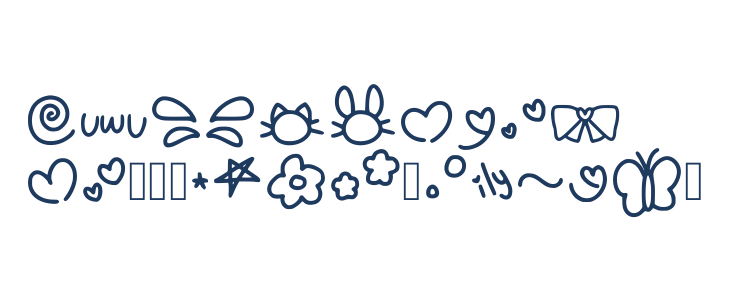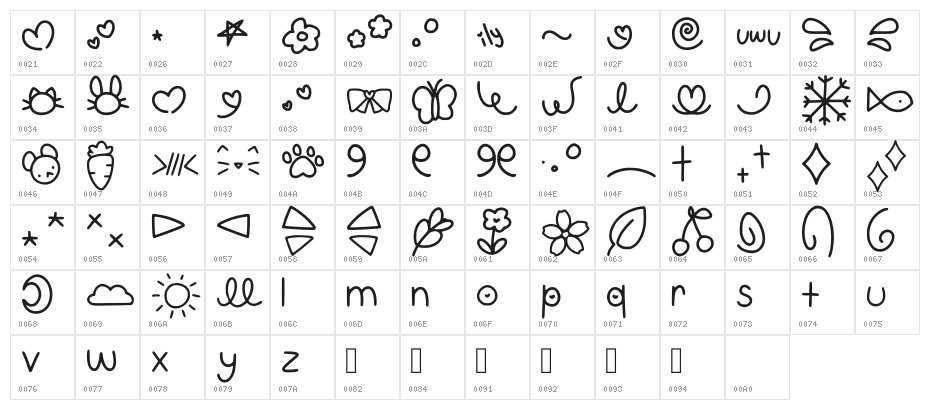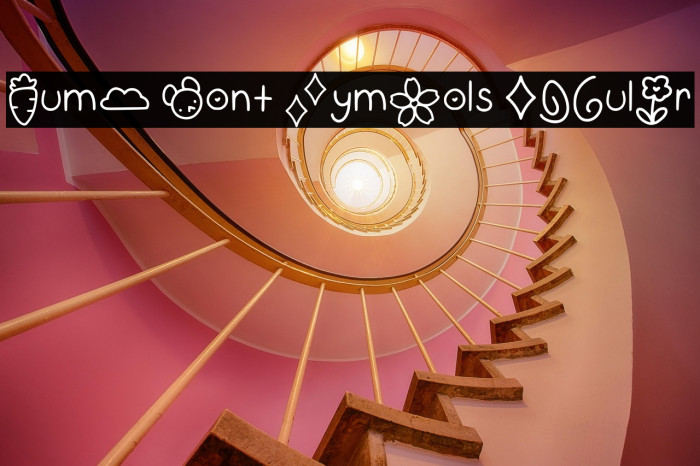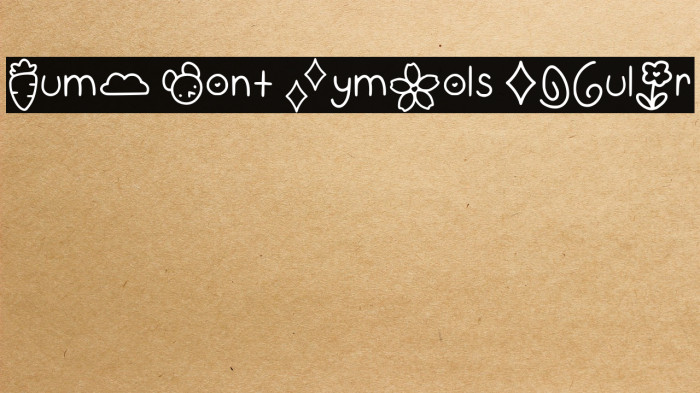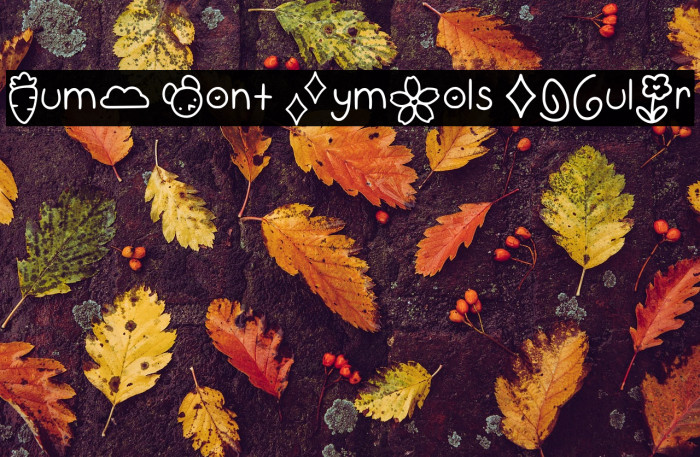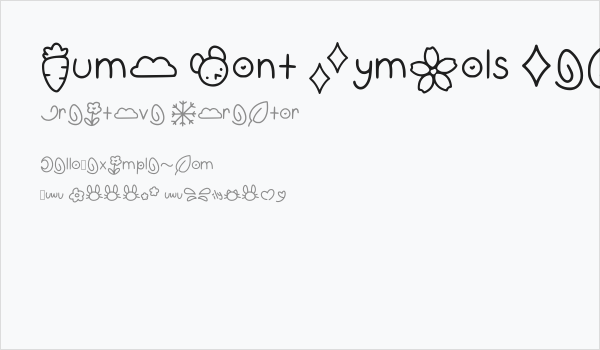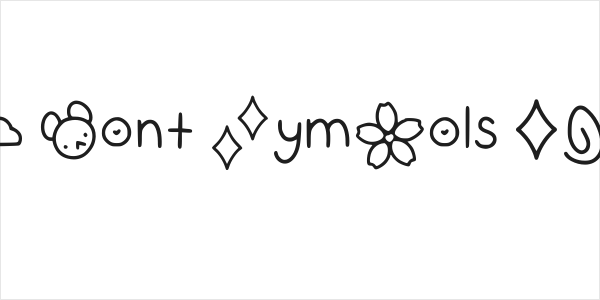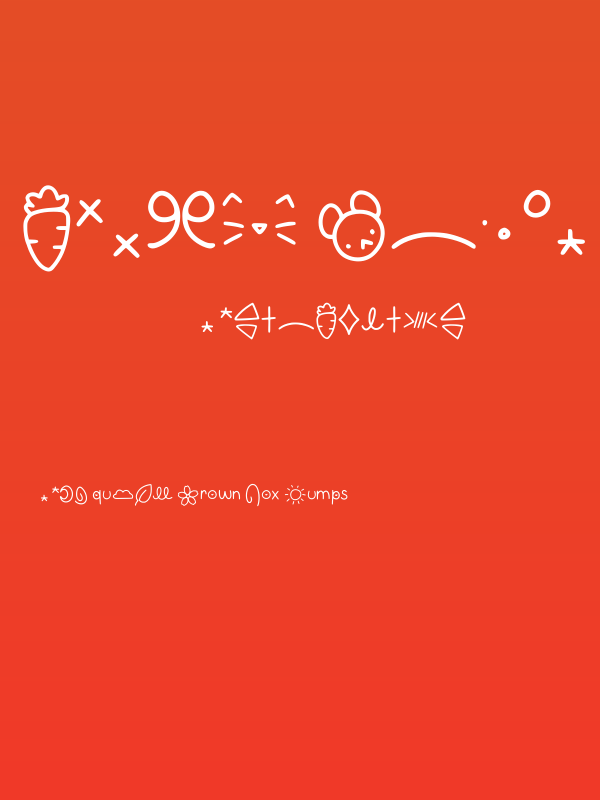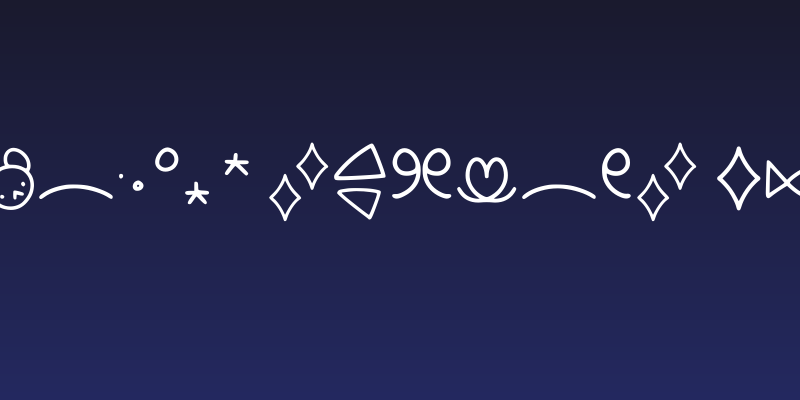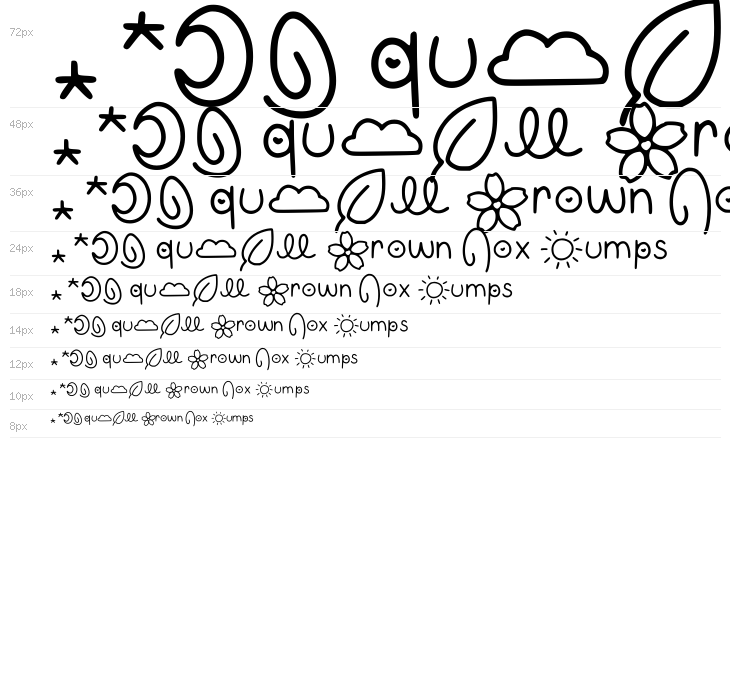
Gumi Font Symbols Regular Font
Gumi Font Symbols Regular Description
This playful and whimsical font features a variety of charming symbols and characters that evoke a sense of fun and creativity. The design includes a mix of hand-drawn elements such as hearts, stars, flowers, and other cute symbols, alongside lowercase alphabet letters. The characters are rounded and have a casual, friendly appearance, making them perfect for projects that require a light-hearted and informal touch. The font's unique style is characterized by its decorative elements, which add a personal and artistic flair to any design.
| Use Case | Decorative elements, informal text, creative projects. |
| Proposed Projects | Ideal for children's books, greeting cards, playful branding, and creative social media graphics. |